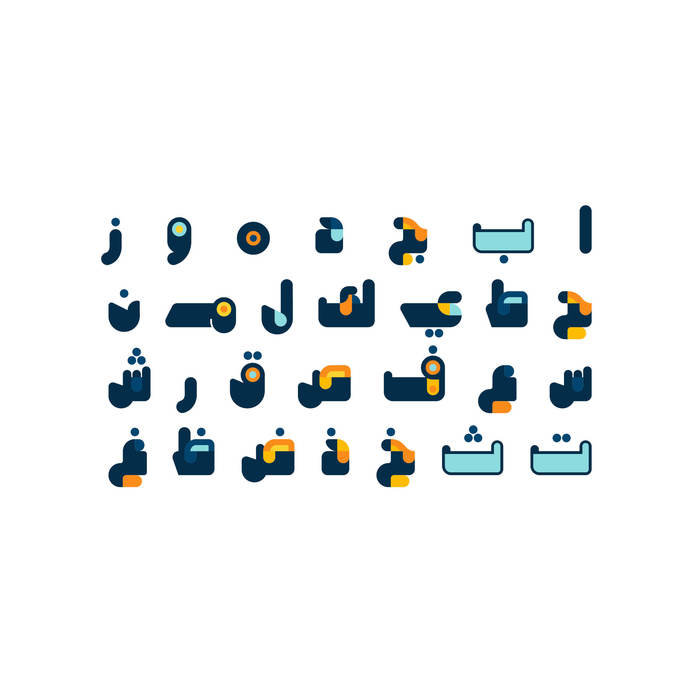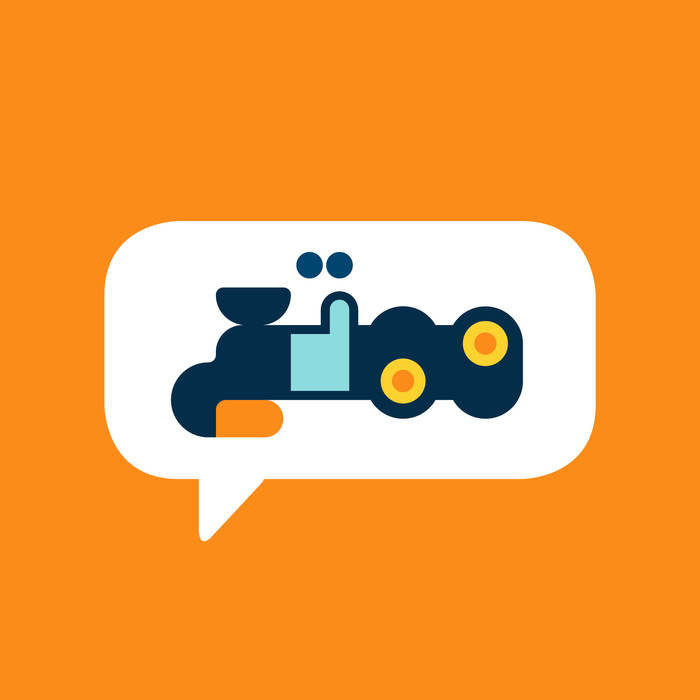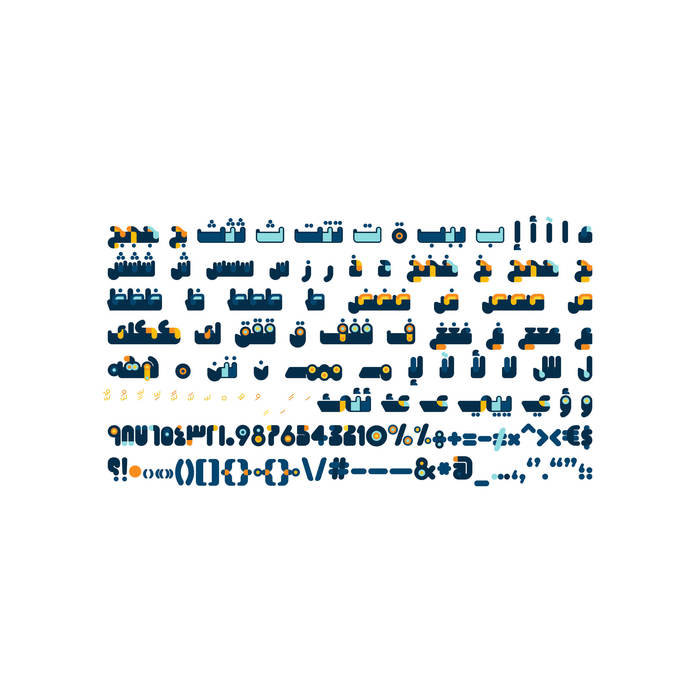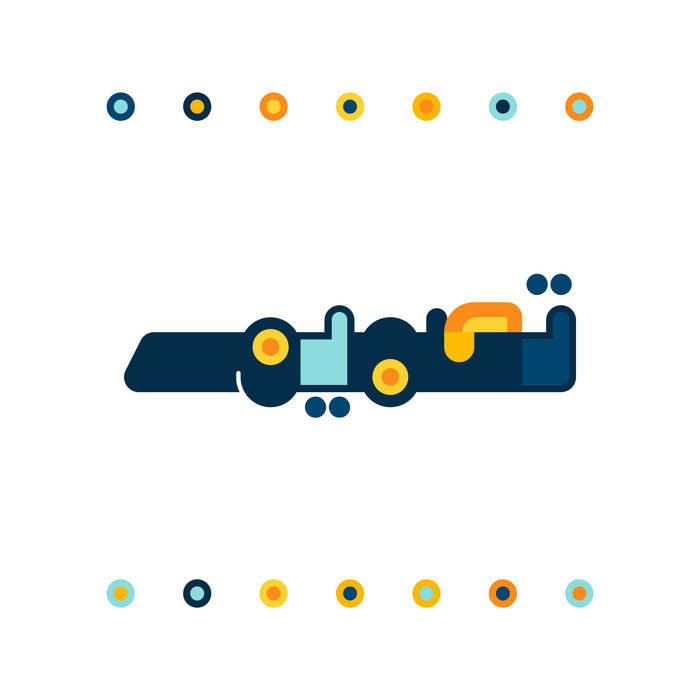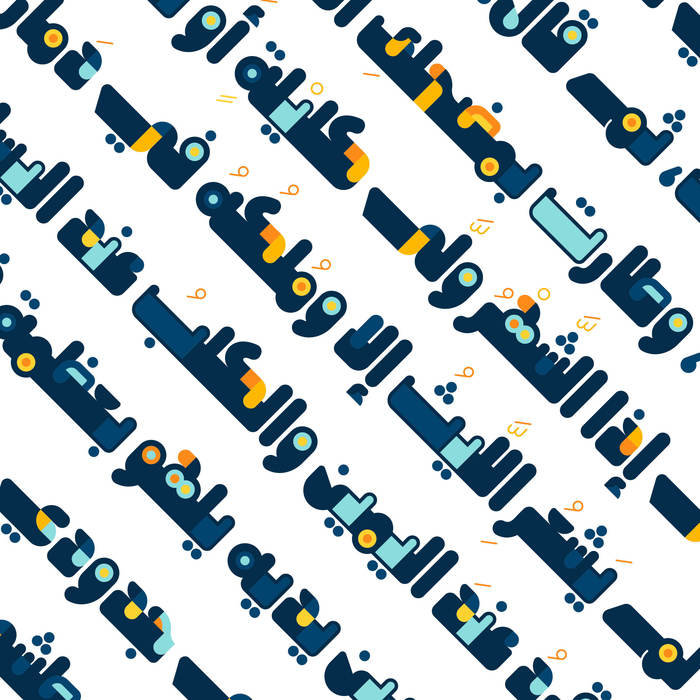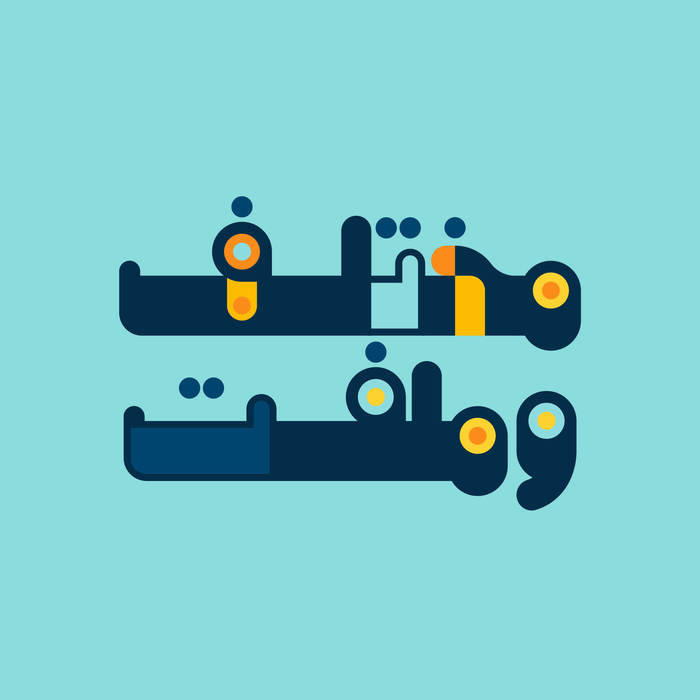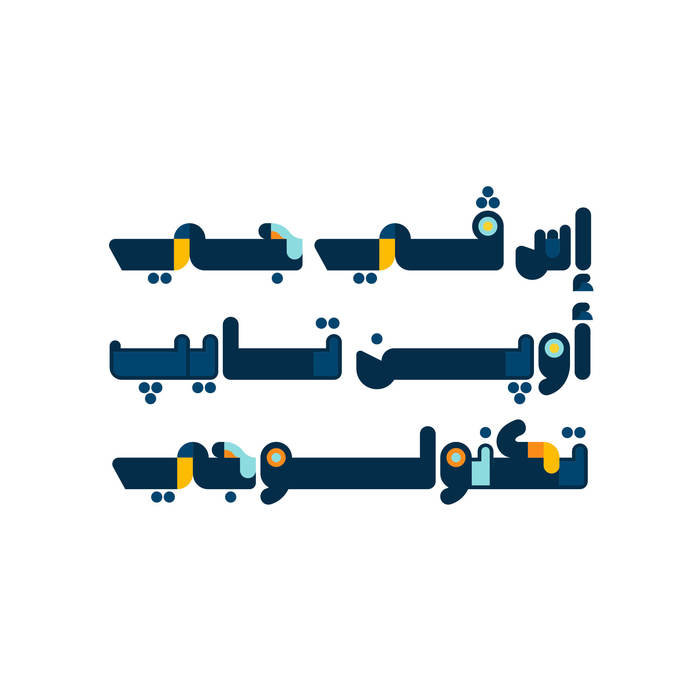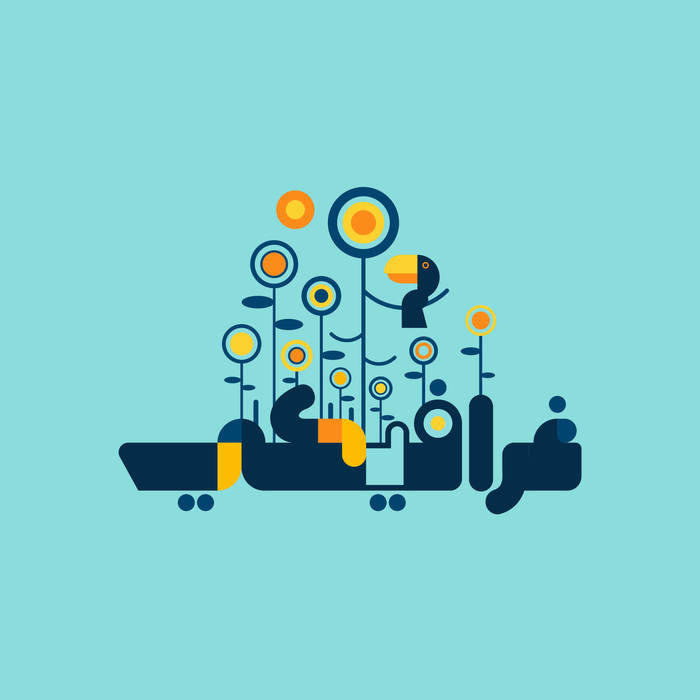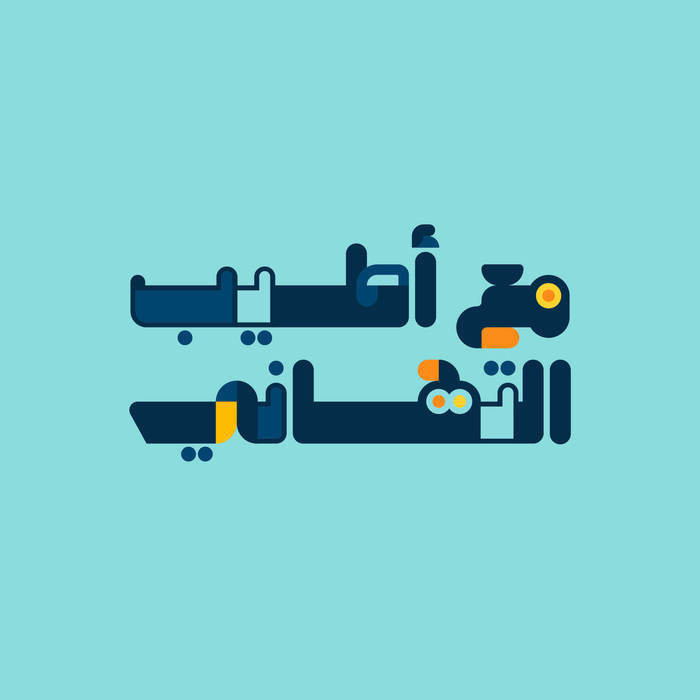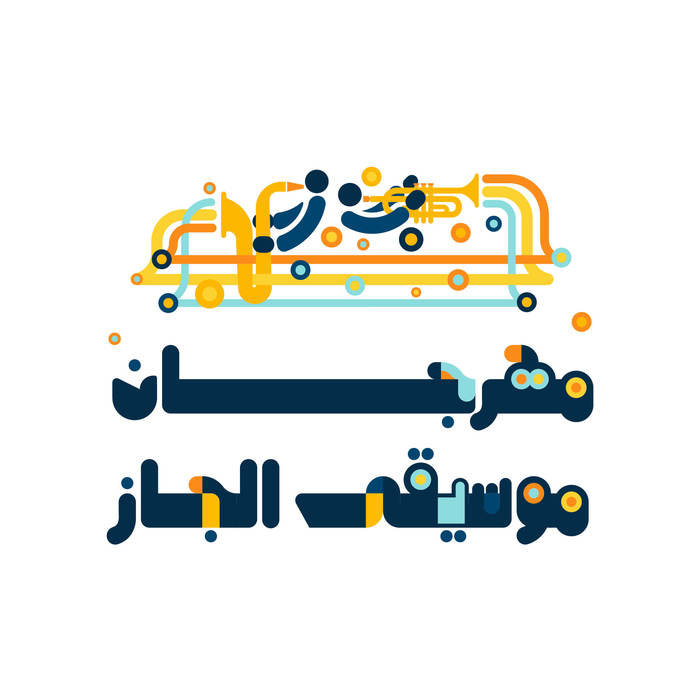
Bahjah - Arabic Color Font
Bahjah (which is the Arabic word for Joy) is an Arabic display font that features joyful and energetic letterform style. The font is suitable for most modern applications including web, print and smartphones. It comes in both vector and raster colorfont formats (SVG-OpenType and SBIX).